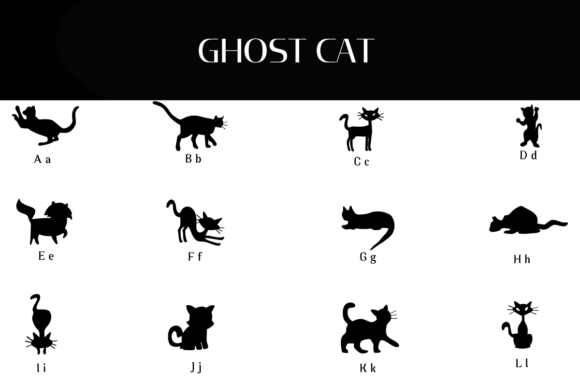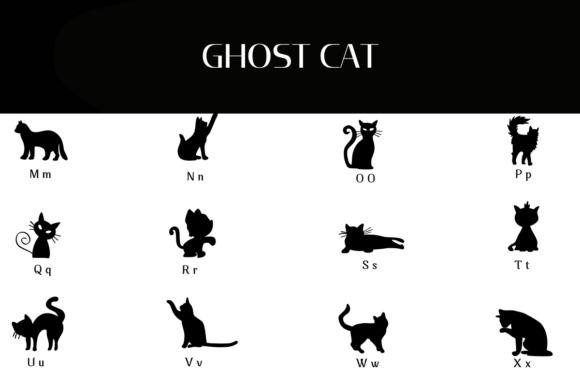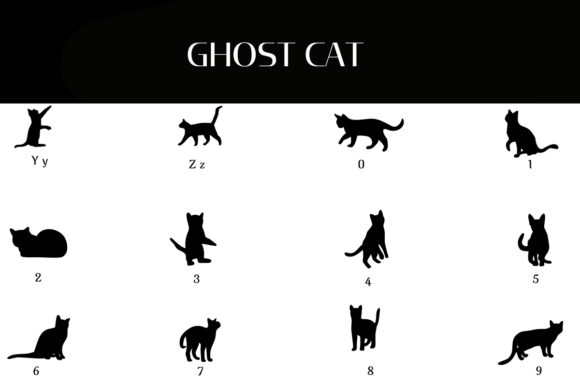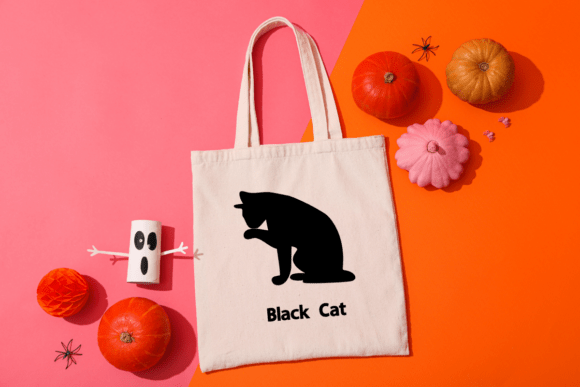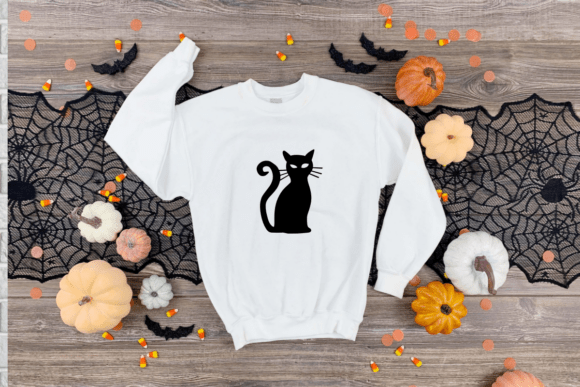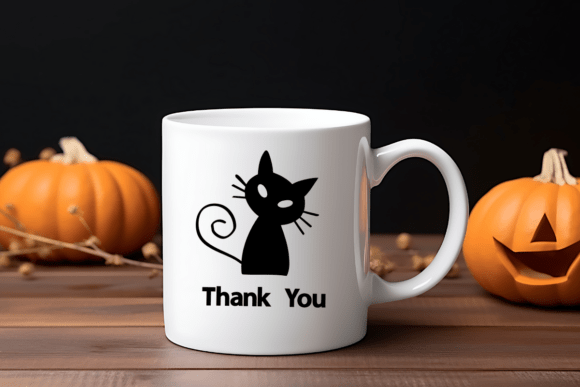
Unleash the Whimsy: Discover the Enchanting Ghost Cat Font
Are you ready to add a touch of mystery and playfulness to your designs? Look no further than the Ghost Cat Font, a delightful dingbat font featuring a charming collection of cat silhouettes. From elegant poses to mischievous stretches and curious stares, this font is purr-fect for projects that need a dash of personality and intrigue.
A Font that’s the Cat’s Meow
Ghost Cat is a versatile font that captures the essence of our feline friends. With a range of designs that showcase the elegance and whimsy of cats, this font is ideal for a variety of projects. Whether you’re creating Halloween designs, pet-themed crafts, logos, posters, stickers, cards, or home decor, Ghost Cat adds a bold visual statement while maintaining a lighthearted tone.
A Collection of Charming Cat Silhouettes
The Ghost Cat Font features a diverse range of cat shapes, from cute and playful to spooky and mysterious. This variety makes it an excellent choice for both fun and elegant designs. With Ghost Cat, you can add a touch of sophistication or a dash of whimsy to your projects, depending on your creative vision.
Ghost Cat is a dream come true for designers and crafters. This font is fully scalable and compatible with all major design and cutting software, allowing you to create seamless vector illustrations, vinyl projects, and digital art. Whether you’re designing for a feline-themed collection or adding a mysterious accent to your work, Ghost Cat delivers both charm and creativity.
With Ghost Cat, the design possibilities are endless. Use it to:
- Create spooky-ooky Halloween designs that will leave a lasting impression
- Develop adorable pet-themed crafts that will melt hearts
- Design eye-catching logos that will make your brand stand out
- Produce stunning posters, stickers, and cards that will grab attention
- Add a touch of whimsy to your home decor with custom vinyl projects
What Makes Ghost Cat Special?
So, what sets Ghost Cat apart from other fonts? Here are a few reasons why this font is a must-have for designers and crafters:
- Unique and charming designs: Each cat silhouette is carefully crafted to capture the essence of our feline friends
- Fully scalable: Use Ghost Cat for projects of any size, from business cards to billboards
- Compatible with major design software: Seamlessly integrate Ghost Cat into your workflow
- Lighthearted and playful: Add a touch of whimsy to your designs with Ghost Cat’s playful cat silhouettes
Bring a Touch of Curiosity and Magic to Your Designs
Ghost Cat is more than just a font – it’s a design experience. With its enchanting cat silhouettes and versatile design, this font is sure to inspire your creativity. Whether you’re a seasoned designer or a crafty DIY enthusiast, Ghost Cat is the purr-fect addition to your design toolkit.
Get Ready to Fall in Love with Ghost Cat
In conclusion, Ghost Cat is a delightful dingbat font that will capture your heart and inspire your creativity. With its charming cat silhouettes, versatility, and compatibility with major design software, this font is a must-have for designers and crafters. So, what are you waiting for? Unleash the whimsy and magic of Ghost Cat in your designs today!